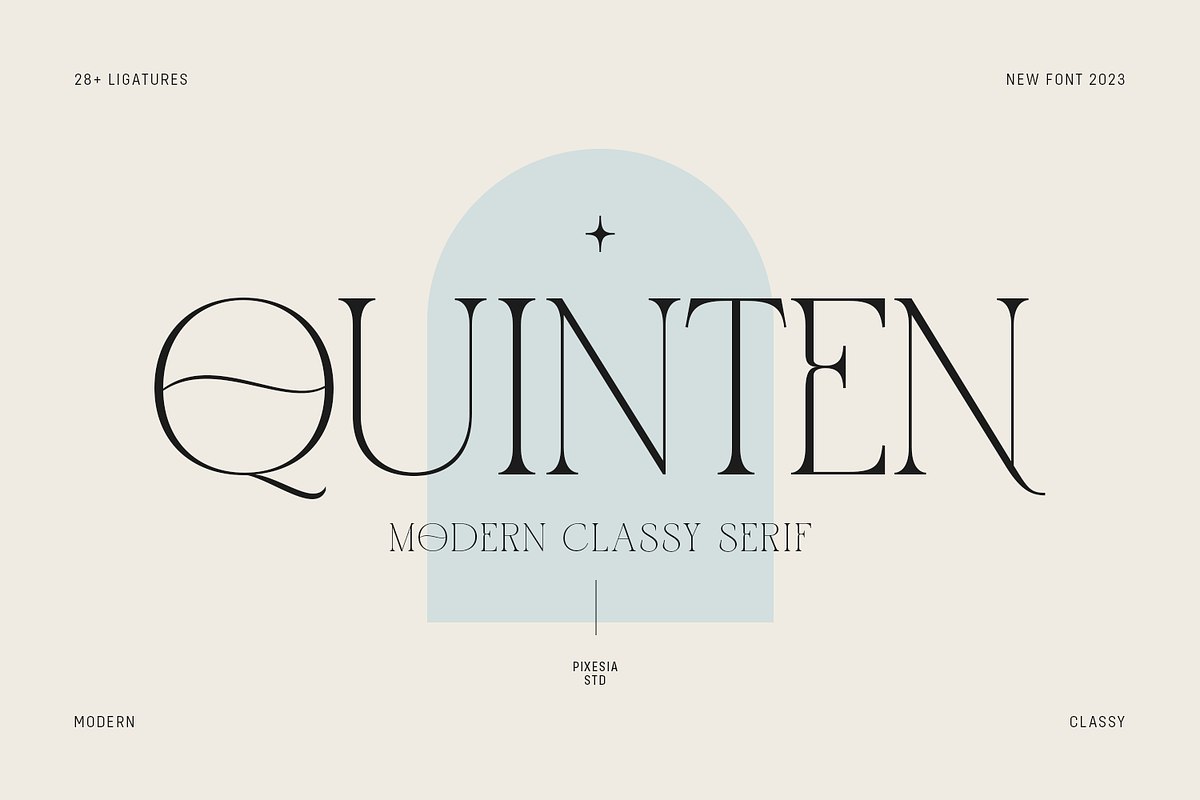
You must purchase this font for commercial use. However, you can download Quinten – Modern Classy Serif Font Free Download for testing purposes. Quinten is a refined and elegant serif font that combines modern design with timeless sophistication. With its high contrast, clean lines, and stylish letterforms, Quinten is perfect for luxury branding, editorial layouts, logos, and premium product packaging.
This modern serif font exudes professionalism and class, making it suitable for both traditional and contemporary designs. Whether you're working on a high-end fashion brand, creating an upscale invitation, or designing a premium logo, Quinten – Modern Classy Serif Font Free Download brings a sophisticated touch to your typography.